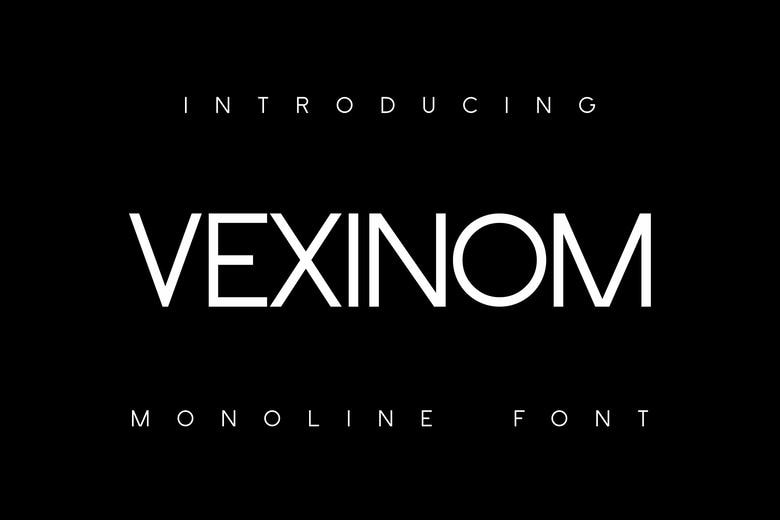
Vexinom Font
Embark on a journey to the edge of modern design with Vexinom, a forward-thinking sans serif font. Sporting a sleek, technologically-inspired aesthetic, Vexinom is infused with an attitude as bold as its lines. Its sharp angles and minimalist structure smoothly merge to form a commanding presence, making it an emblem of the interconnected digital world.
Dive into the world of Vexinom – an ideal choice for groundbreaking sci-fi projects, innovative technology branding, intuitive UI designs, attention-grabbing game titles, and immersive digital media experiences. Awaken the future with Vexinom.
Vexinom Sans Serif Font